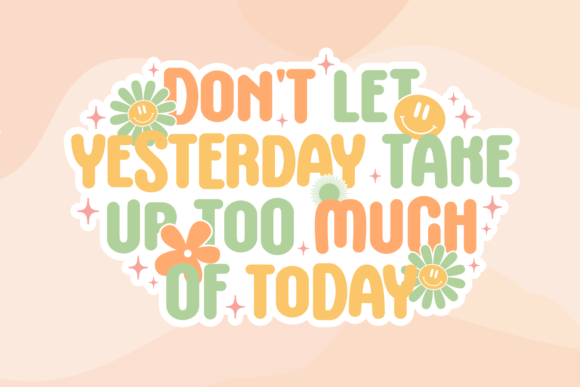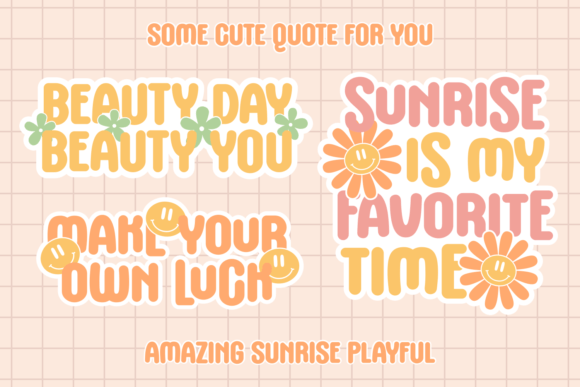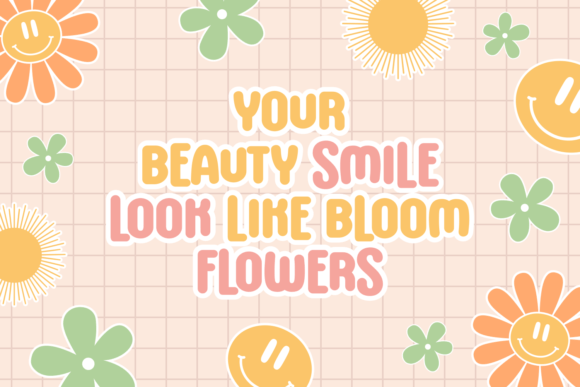
Amazing Sunrise is a playful and friendly display font, perfect for invoking the cheerful spirit of childhood.
The letters dance and sway, exuding a joyful energy that captures the essence of carefree days Whether you’re designing for children’s books, playful logos, party invitations, or anything in between, this font will effortlessly bring your creations to life.
Amazing Sunrise Font offers exceptional quality and versatility, making it a valuable addition to your design toolkit. Whether you’re creating for personal projects or commercial use, Amazing Sunrise Font delivers professional results.